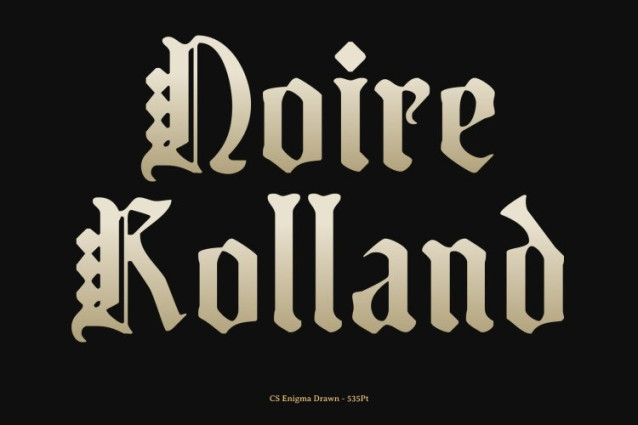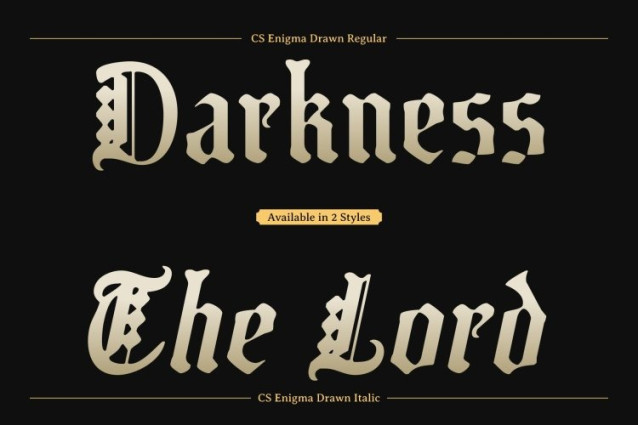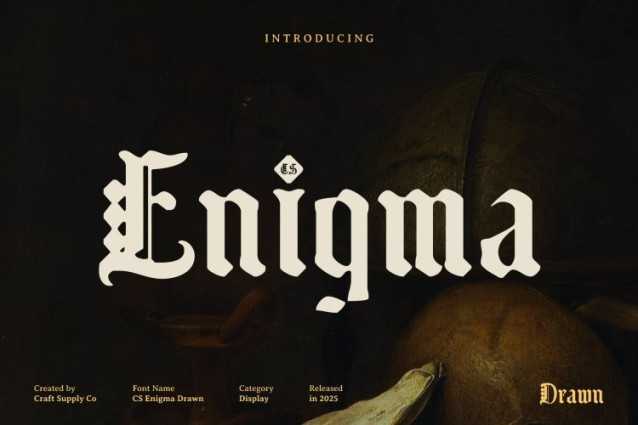
CS Enigma Drawn Font
CS Enigma Drawn Font This is a bold modern blackletter display font that reinvents classic Gothic aesthetics with a contemporary twist. Featuring sharp, angular strokes, ornamental details, and a commanding visual rhythm, it captures the essence of traditional blackletter while offering clean, refined lines. The drawn texture adds a handcrafted, expressive touch that makes each character feel unique and full of personality.
Refined Drama with Artistic Clarity
While maintaining the dramatic flair of Gothic typography, balances complexity with readability. Its bold, structured forms preserve blackletter intensity, yet the drawn effect softens the edges and introduces subtle imperfections. This combination creates a font that is both striking and approachable, ideal for projects that demand boldness without sacrificing clarity.
Ideal for Expressive and Edgy Designs
This font a excels in creative projects that require attention-grabbing typography. Perfect for music posters, fashion campaigns, edgy branding, album covers, and merchandise, its character-rich letterforms convey emotion, attitude, and historic sophistication. The handcrafted texture adds depth, making every design distinctive and memorable.
Versatile Across Media and Applications
From digital interfaces to print layouts, adapts seamlessly across mediums. Its expressive, textured style enhances display headlines, branding, packaging, and experimental designs, providing a powerful typographic voice that bridges traditional Gothic elegance with contemporary boldness.